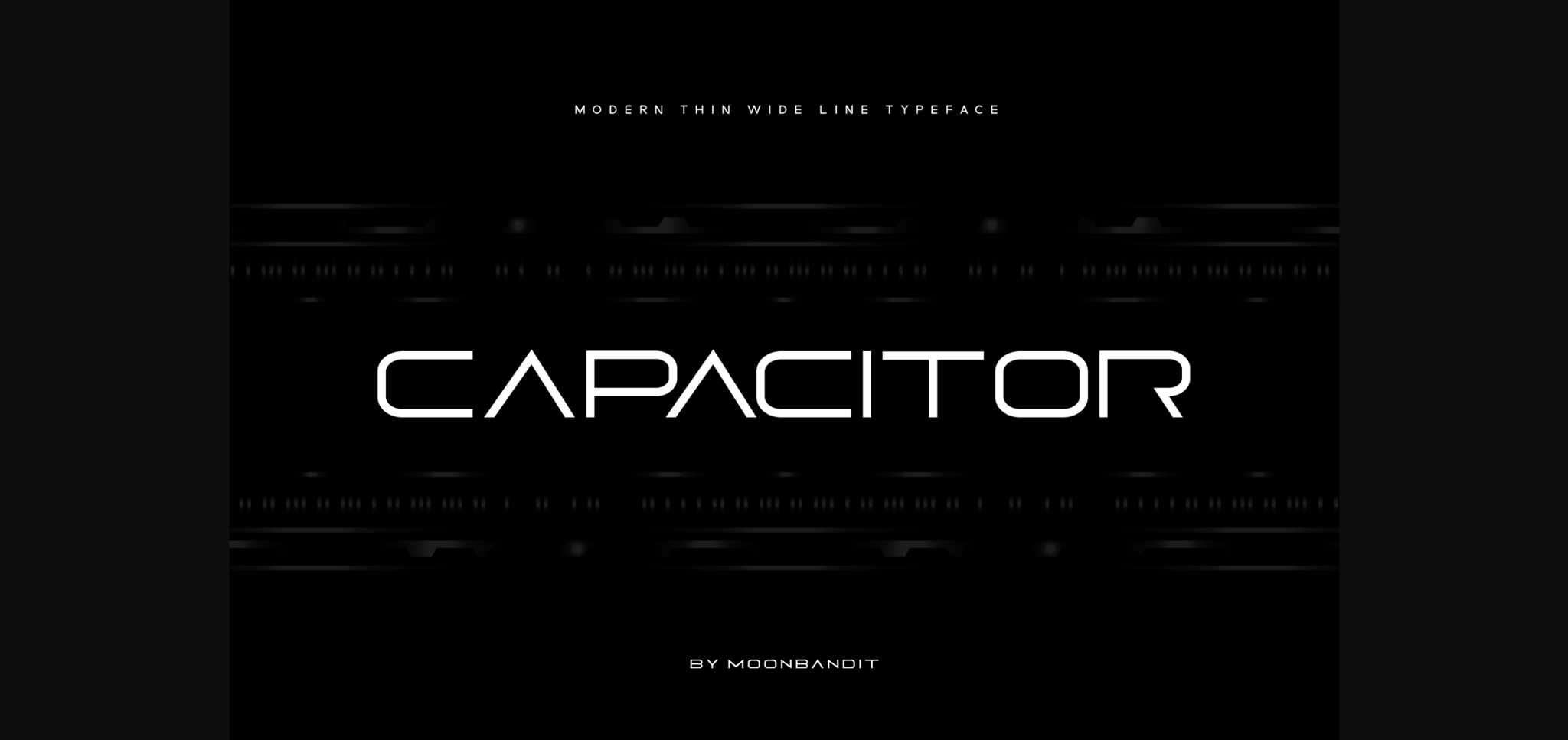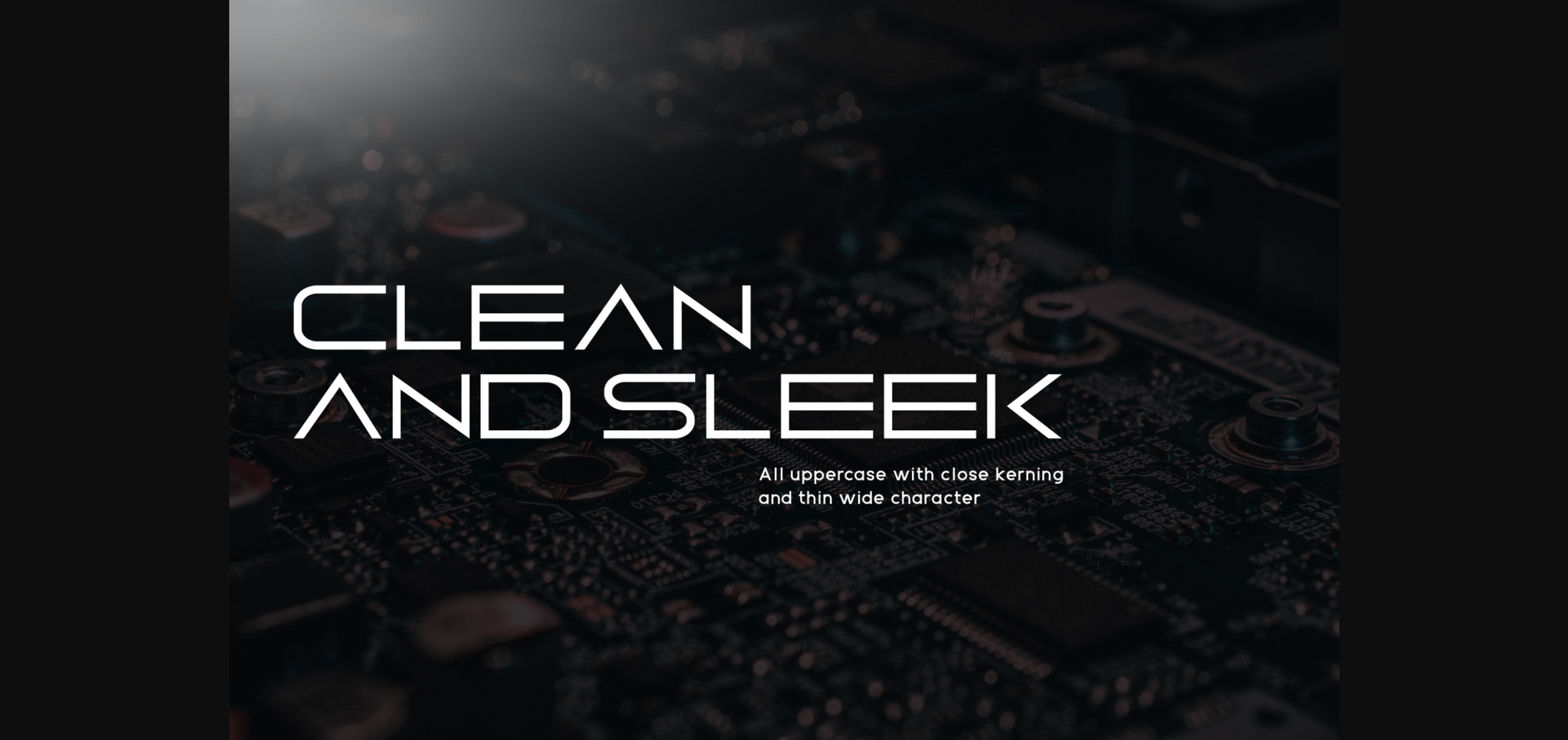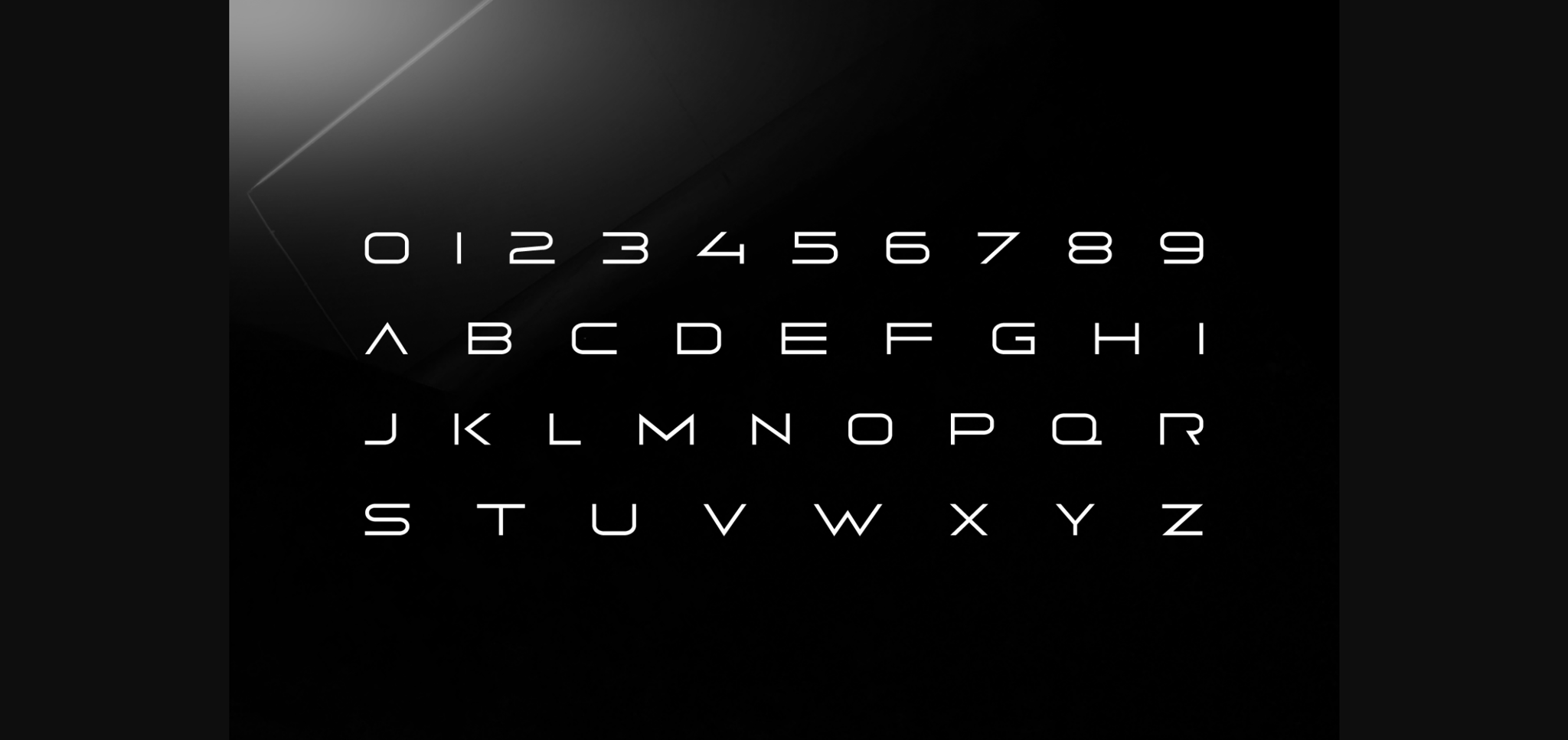
Capacitor Font
About Capacitor Font
Capacitor is a minimal and neat sans serif font. It can easily be matched to an incredibly large set of projects, so add it to your creative ideas and notice how it makes them stand out!